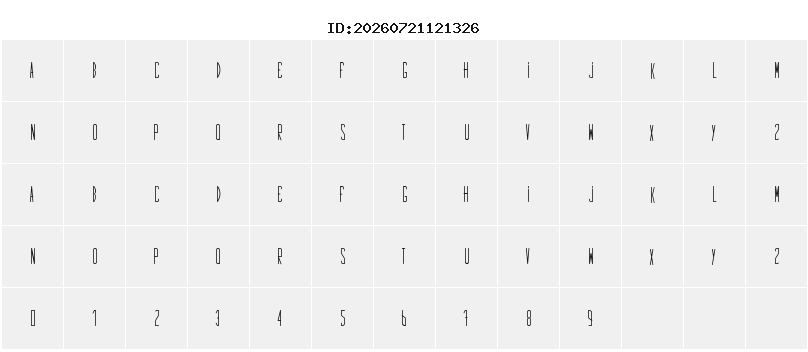
• Font Name: First
• Full Font Name: First Bold
• Manufacturer: Antonio Locicero
About First.ttf
First.ttf is a modern, elegant sans-serif font designed for ultimate readability and visual harmony. Perfect for branding, headlines, web design, and print materials.